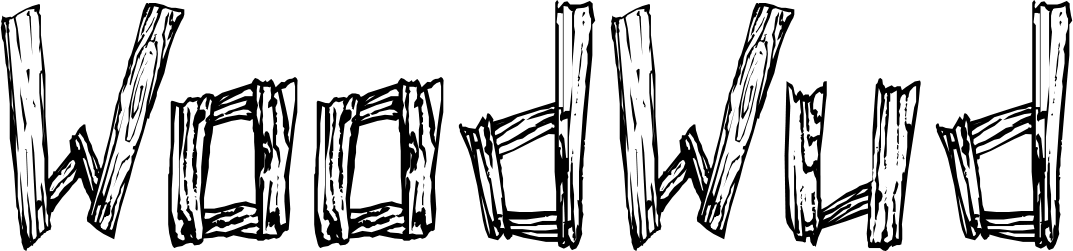
WoodWud Font
WoodWud is one of the fonts inspired by the formation of trees and woods. The vintage lines on each of the woods can make it one of the potential volunteers to design posters and flyers. This farmhouse font is used to de…
WoodWud is one of the fonts inspired by the formation of trees and woods. The vintage lines on each of the woods can make it one of the potential volunteers to design posters and flyers.
This farmhouse font is used to design jungle entrance signs, zoos, and camping posters. This wooden font has no numbers, and you can only use other features to develop one of the animated forest posters.
Yet another font made up of pieces of wood nailed together. It is based on a vector alphabet whose source is unknown to me, with some modifications..